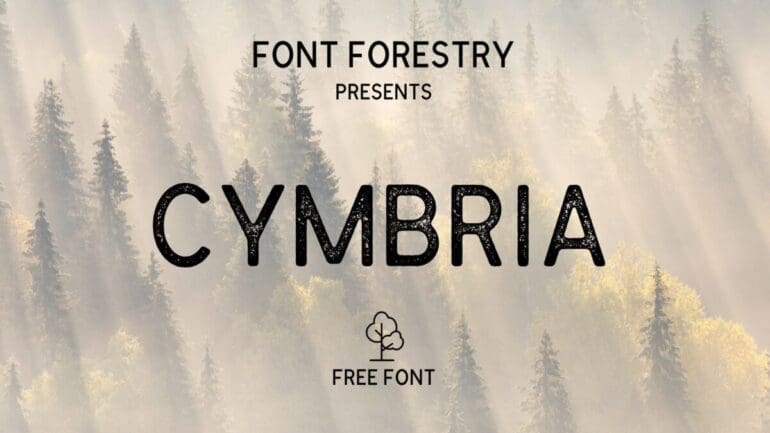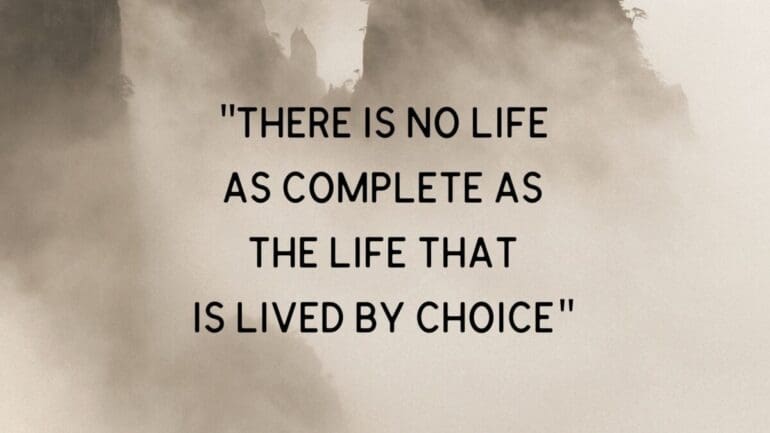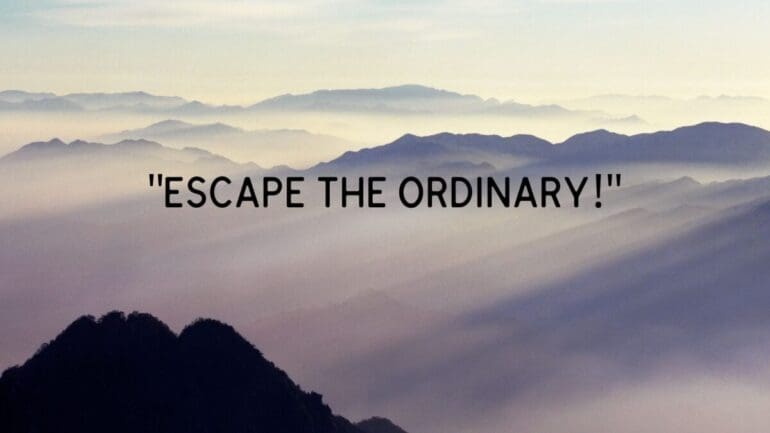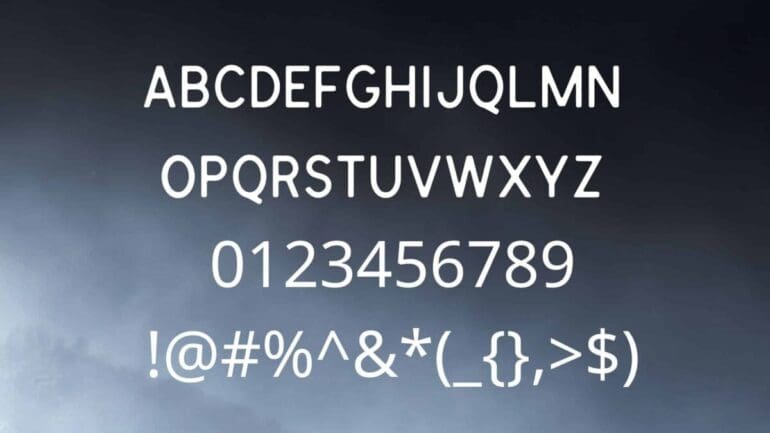
Cymbria Font
Cymbria Font is a retro, decorative, and modern typeface that is belonging to the most usable sans-serif typeface on the web. Font Forestry is a basic designer of Cymbria Font family that was initially released for public use. This is a high-quality typeface that contains a complete package of styles and weights. It has 6 weights that are Regular, Bold Regular, Textured, Bold Textured, Rounded, Bold Rounded. Cymbria font is a complete font package along with multiple functions that will be an ideal font for every other designer.